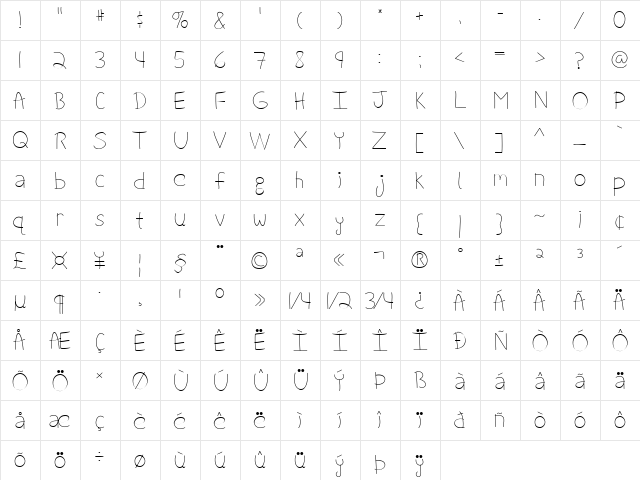
Fight For Our Love Regular
| Foundry | Misti's Fonts (Misti Hammers) |
| Designer | Misti's Fonts (Misti Hammers) |
Design Context for Fight For Our Love Typeface
Fight For Our Love is a composed and adaptable typeface that performs quietly and consistently across a wide range of design contexts.
Pro Tip: Use Fight For Our Love in both headline and body roles to test its range before committing to a single application.